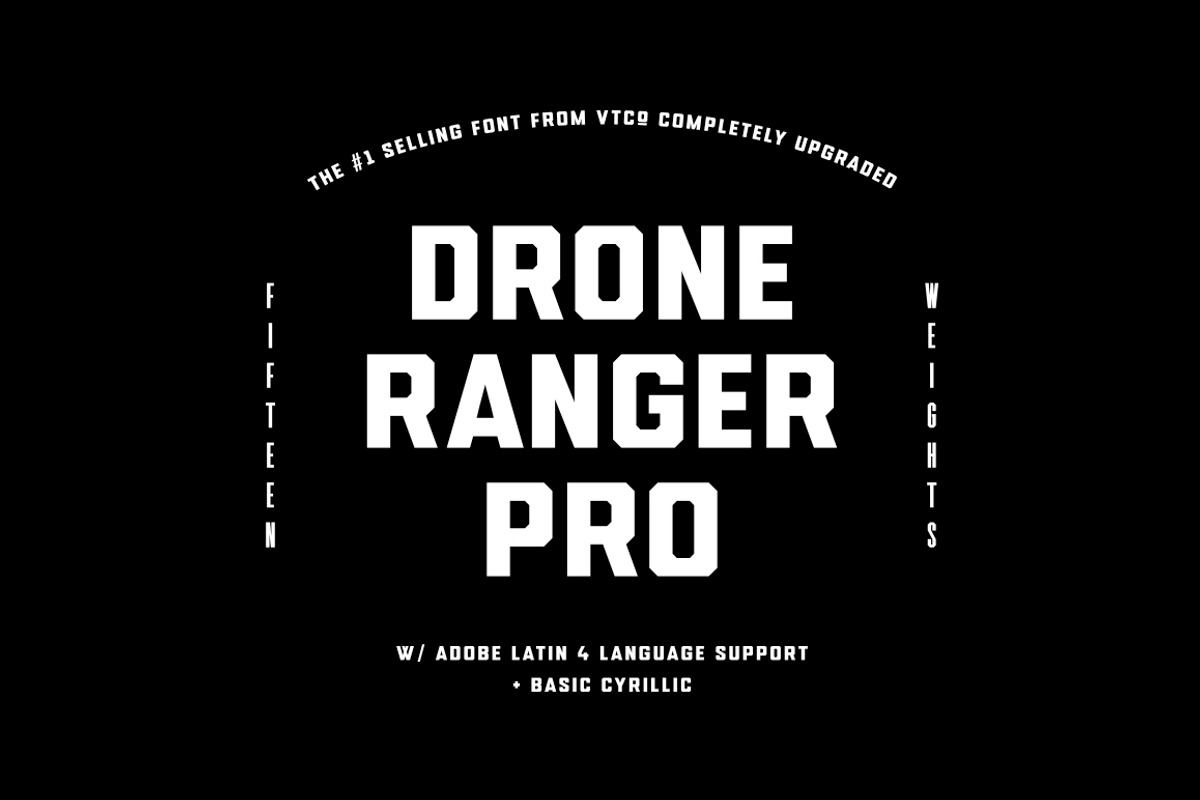
Drone Ranger PRO Font Family Free Download
Drone Ranger PRO Font Family Free Download is a futuristic and bold typeface family designed to make a strong impact with its clean lines and modern aesthetic. The family includes multiple weights and styles, providing versatility for various design projects, including branding, editorial design, web content, logos, and more.
The geometric and sleek nature of Drone Ranger PRO makes it ideal for tech-related, sci-fi, or high-tech branding projects. Whether you're working on a modern website, a logo design, or promotional materials, this font family ensures clarity and strength in your typography.